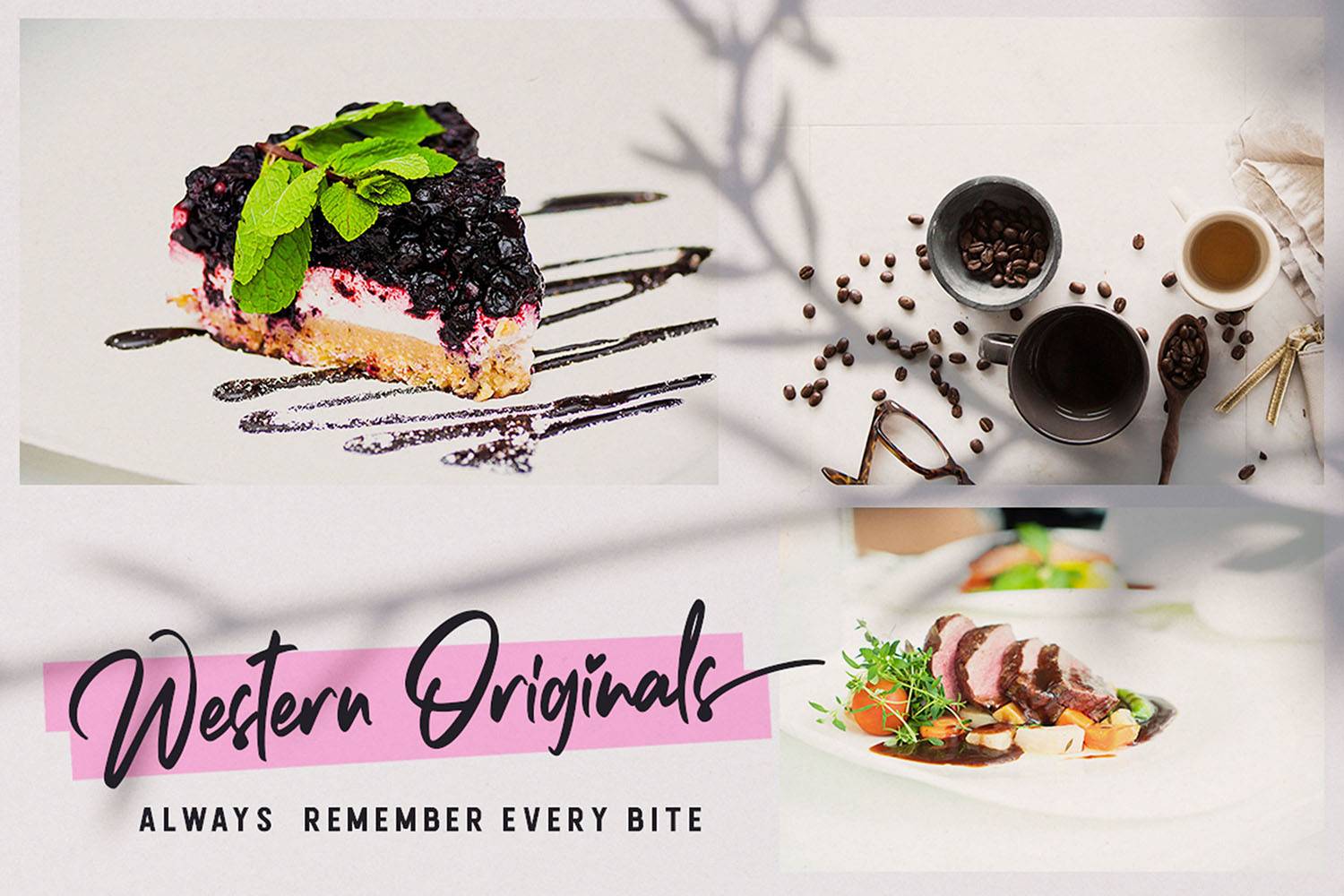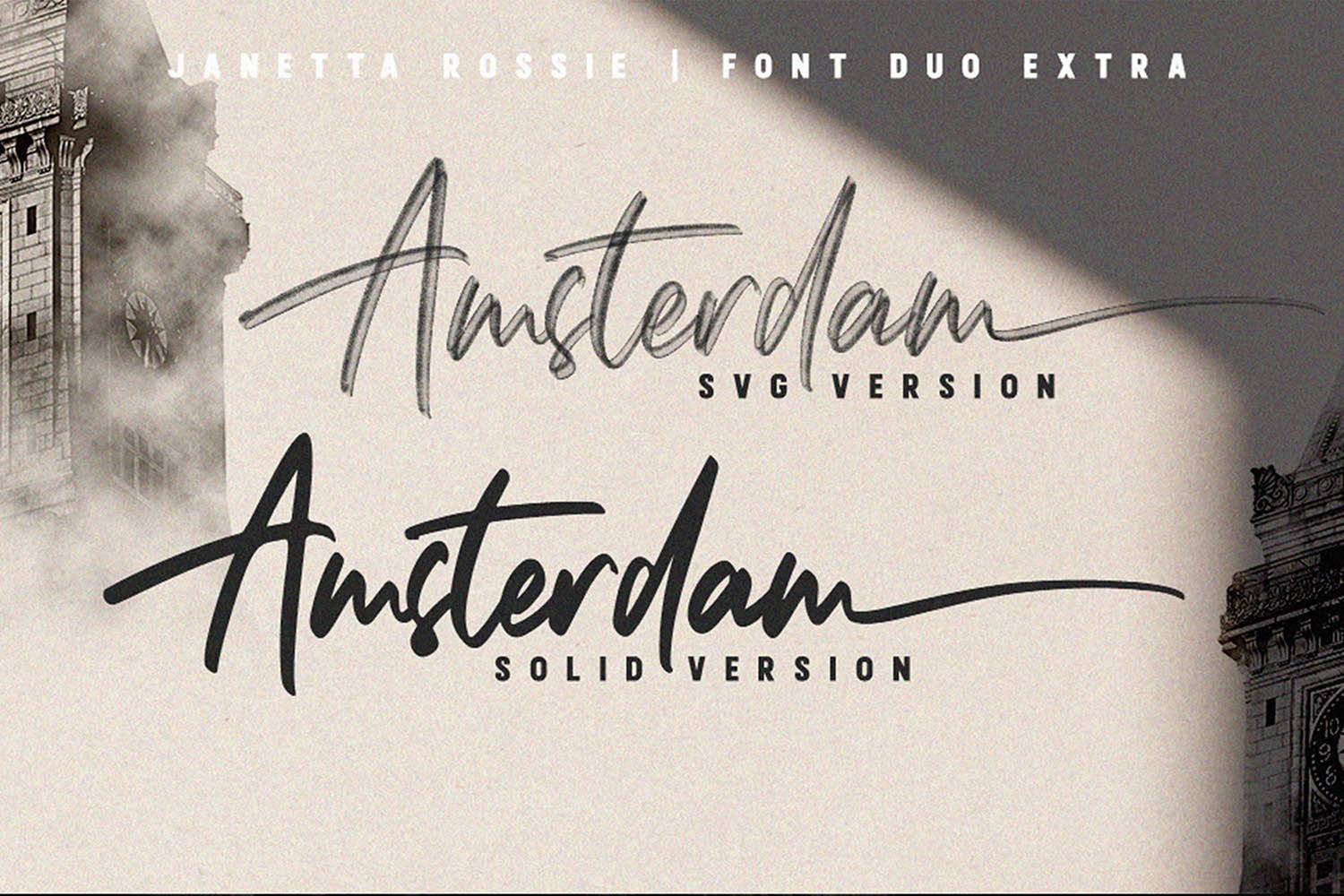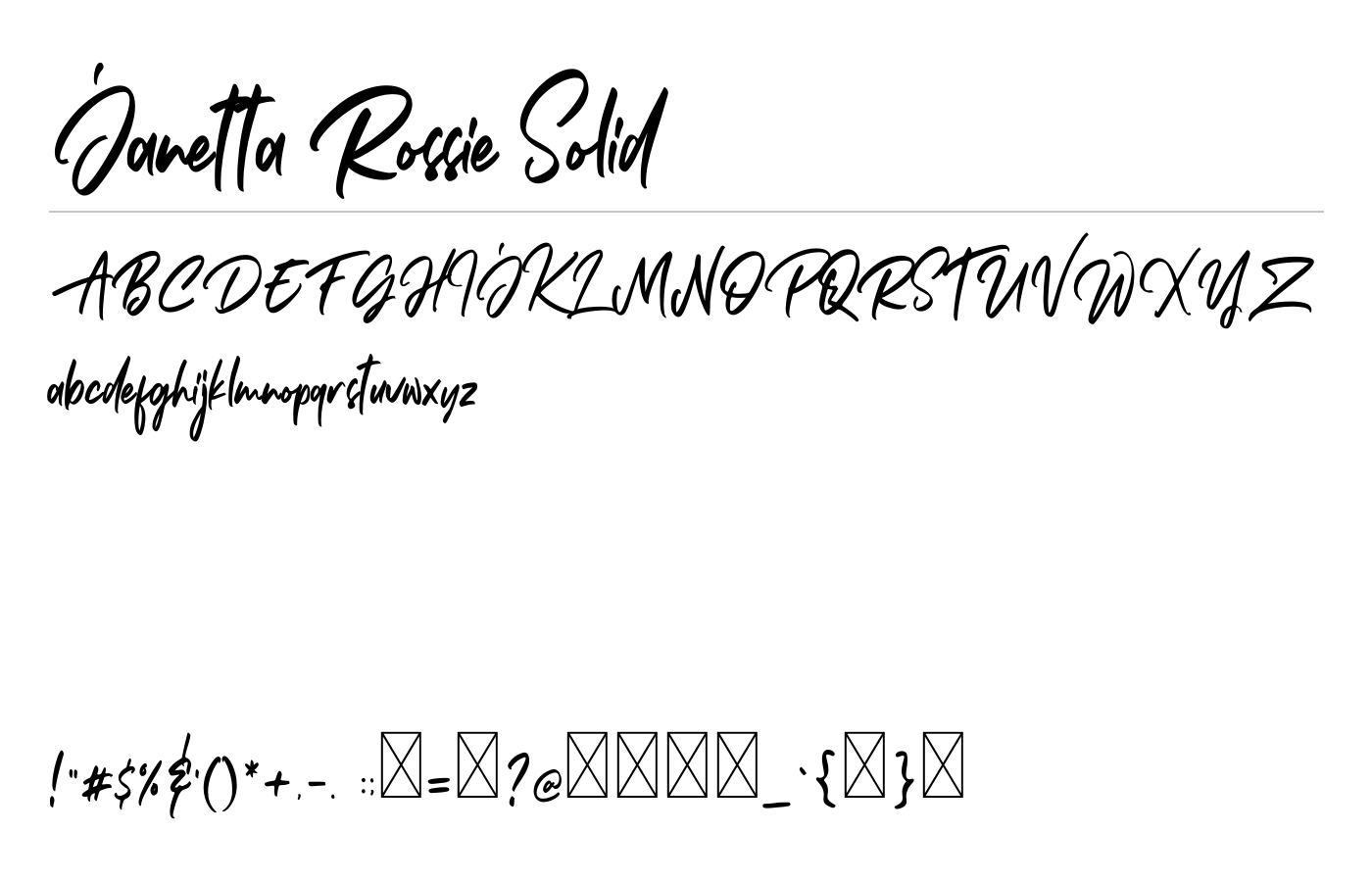
Janetta Rossie is a lively and expressive script font with a bold, solid weight that mimics natural brush lettering. Its tall, slightly condensed letterforms and dynamic stroke contrast give it a modern, artistic feel that works beautifully for creative headlines, branding, and packaging that need a personal, hand-crafted touch. This font is perfect for adding a stylish, energetic vibe to fashion, lifestyle, and editorial projects.
Janetta Rossie Font
About Janetta Rossie Font